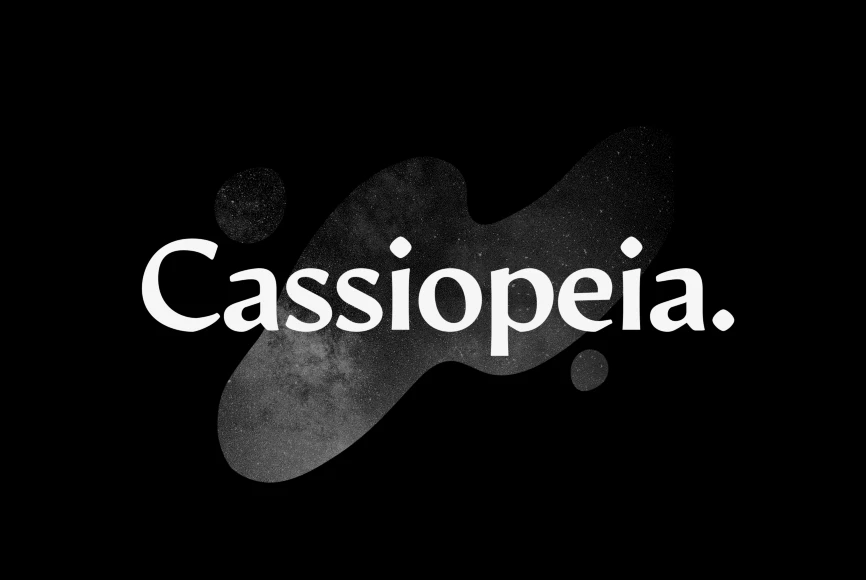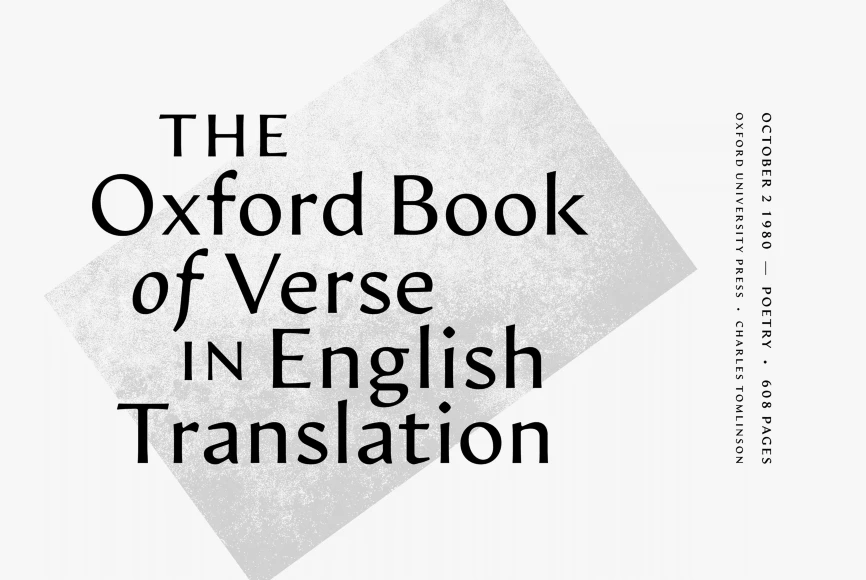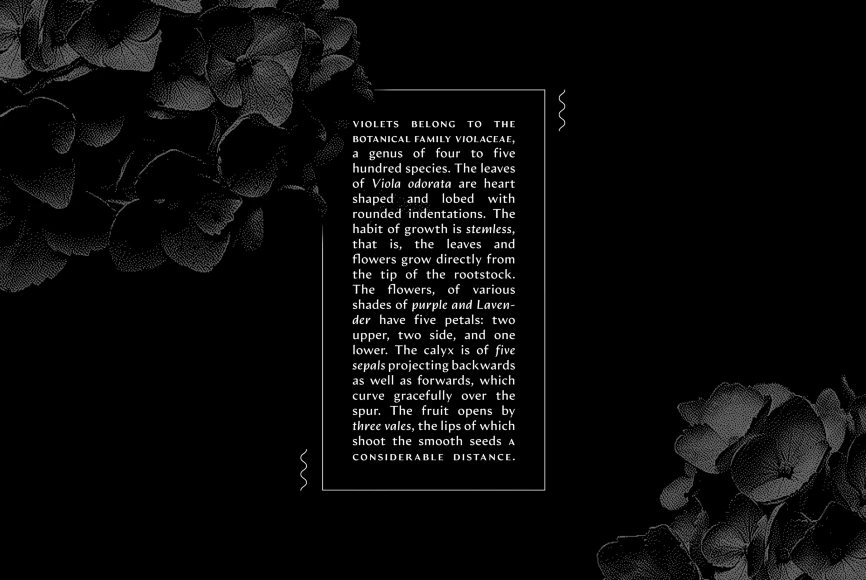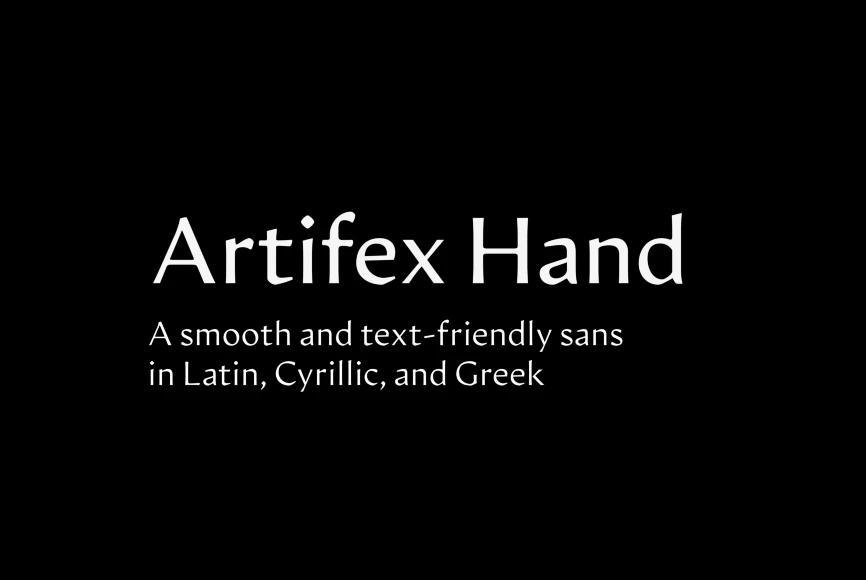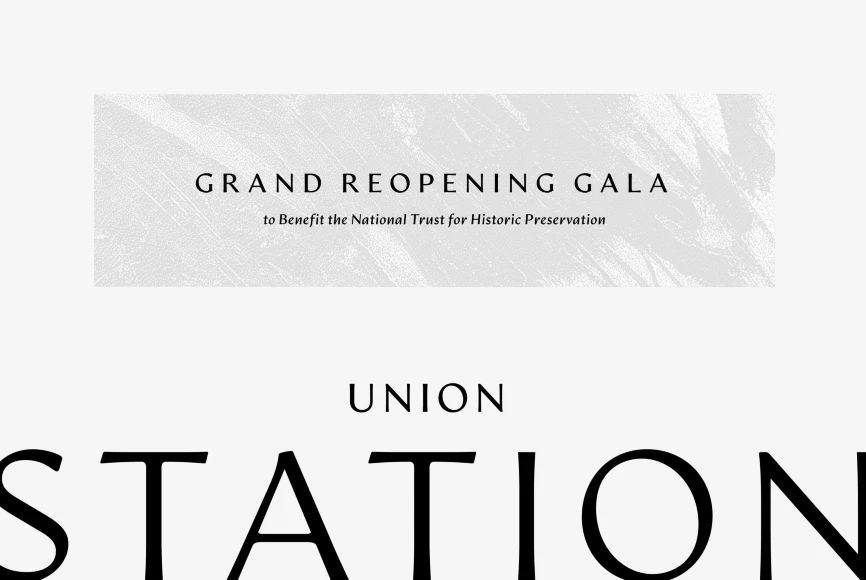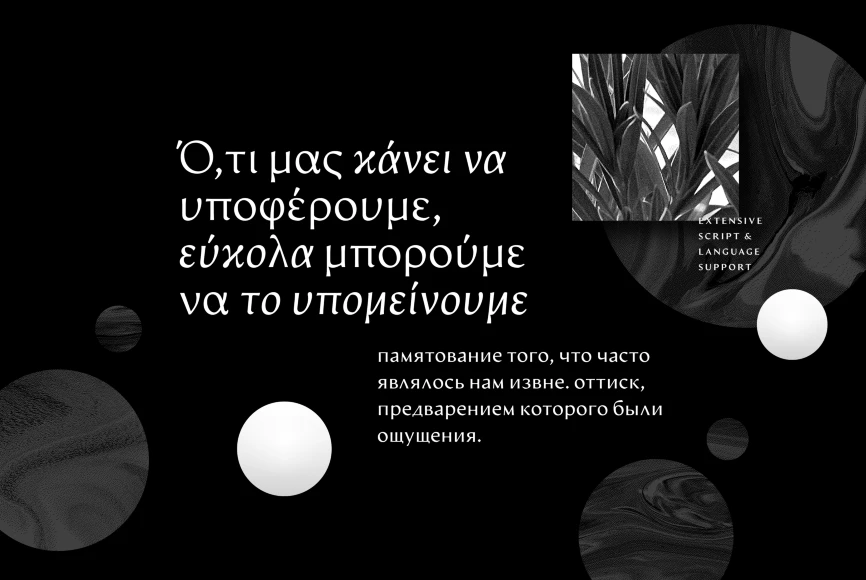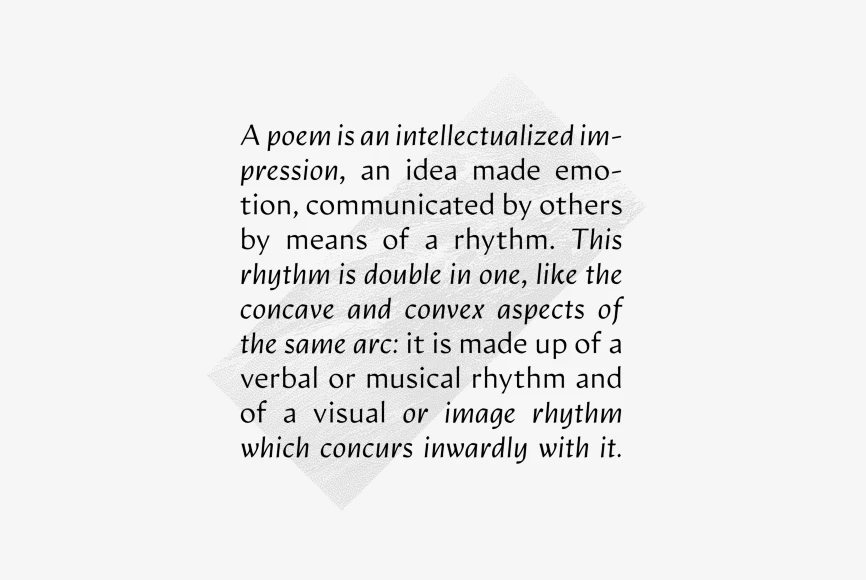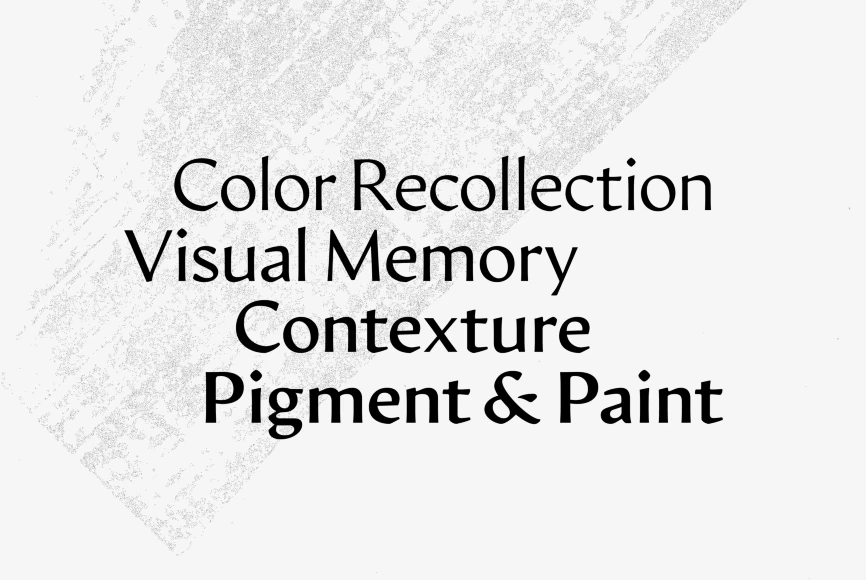
Artifex Hand
Artifex Hand CF is a humanist sans-serif variation on the original Artifex typeface; its serifs replaced with a subtle flare, lending a calligraphic feel and warm tone. Like its sibling, Artifex Hand is designed for flowing, easy-to-read text while doubling as a display font, thanks to its subtle details and moderate contrast. Extensive Latin, Cyrillic, and Greek support lends wide language coverage. Eight weights and true italics • Latin, Cyrillic, and Greek scripts • Wide language support, including Russian, Greek, Vietnamese and many more • International Phonetic Alphabet glyphs included • Latin-script transliteration for Sanskrit, Arabic ALA-LC/DMG/ISO 233, and Pinyin • OpenType features (fractions, alternates, ligatures) • Long term support, free features, and bug fixes. Designed by Connary Fagen, Artifex Hand CF is a sans serif font family. This typeface has sixteen styles and was published by Connary Fagen Type Design.
- Greek
- IPA
- Kazakh
- Macedonian